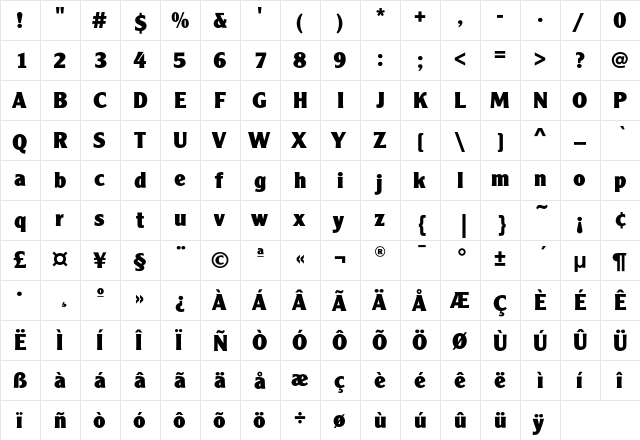
ClearfaceGothicEF-ExtraBold Regular
Design Context for ClearfaceGothicEF-ExtraBold Typeface
ClearfaceGothicEF-ExtraBold takes a clean, functional approach — its unadorned letterforms prioritise legibility and work reliably across screen and print environments. Its bold stroke weight gives it real presence on the page.
Well-suited to navigation labels, product packaging, and anywhere legibility at scale is essential.
Font Pairing: Use ClearfaceGothicEF-ExtraBold for headlines alongside a lighter-weight sans or serif for body copy to establish clear visual hierarchy.
Pro Tip: Use ClearfaceGothicEF-ExtraBold for UI labels, navigation, and short-form body copy where clean legibility is the priority.